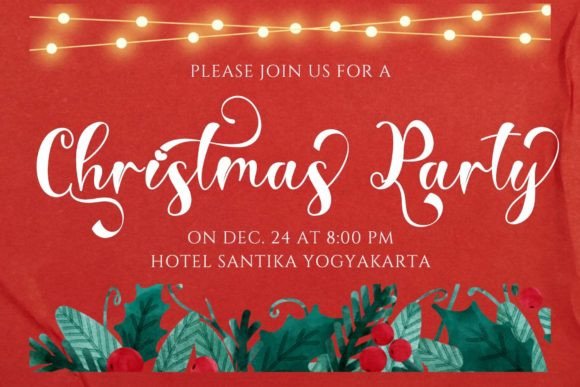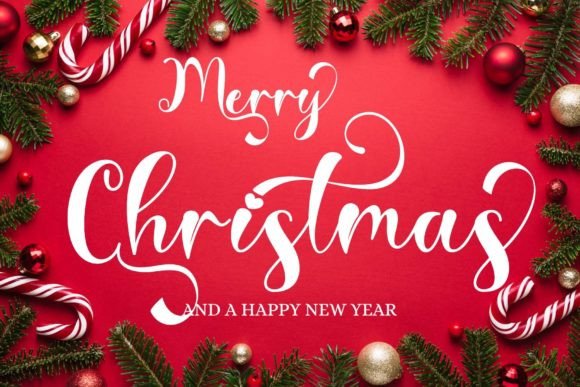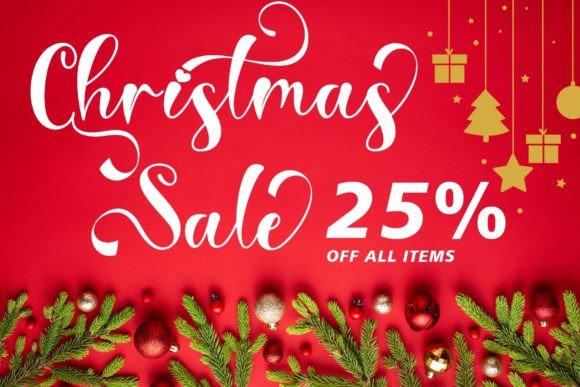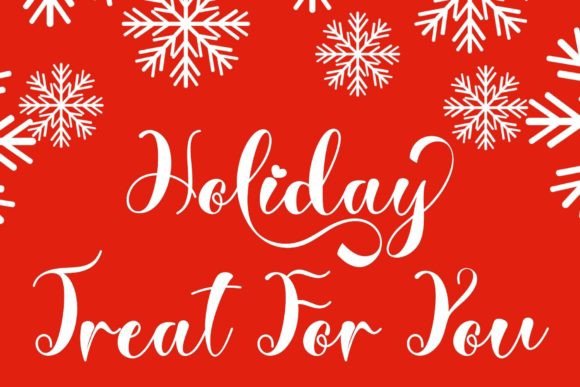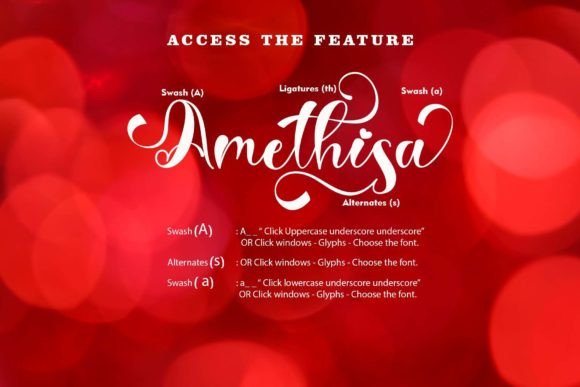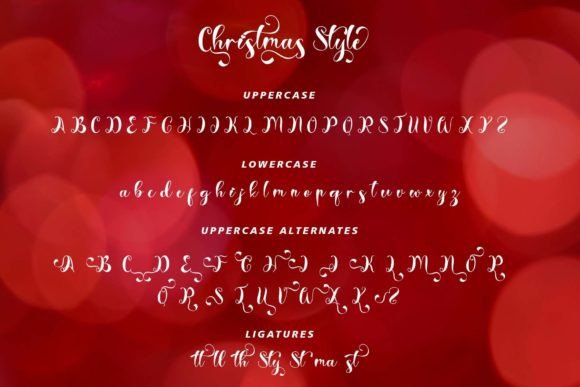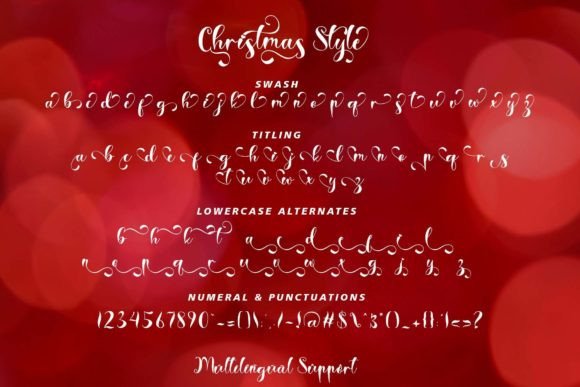
Christmas Style Font
About Christmas Style Font
Christmas Style Font is a festive and magical calligraphy typeface that brings elegance and seasonal charm to your designs. With flowing curves and characters that dance along the baseline, this font blends luxury with warmth, making it an excellent choice for holiday-themed projects. Because of its versatility, Christmas Style Font is perfect for greeting cards, invitations, posters, packaging, logos, and branding. In addition, it is PUA encoded, allowing easy access to all glyphs and ligatures for creative customization.
A Festive Calligraphy Typeface with Elegance
Calligraphy fonts add grace to any design, and Christmas Style Font shines with a holiday twist. Its refined strokes and stylish letterforms give projects a luxurious touch. Moreover, its balance between decoration and readability makes it suitable for both small-scale stationery and large festive banners.
Perfect Typeface for Holiday Cards and Invitations
Seasonal events deserve special designs, and Christmas Style Font is the perfect match. For instance, it works beautifully on Christmas cards, wedding invitations, and thank-you notes. Additionally, it enhances menus, event stationery, and seasonal labels, ensuring every creation looks polished and memorable.
A Script Typeface for Branding and Packaging
Designers and businesses can also rely on Christmas Style Font to elevate branding projects. It looks fantastic on boutique logos, product packaging, and marketing campaigns. Furthermore, it adapts seamlessly to social media posts, advertisements, and promotional flyers, giving your designs a festive yet professional identity.
Flexible Across Print and Digital Platforms
Another advantage of Christmas StyleFont is its adaptability across mediums. In print, it enriches brochures, catalogs, and merchandise. Digitally, it integrates smoothly into websites, blogs, and e-commerce stores. Since it scales cleanly from small text to large headings, it ensures clarity and style across formats.